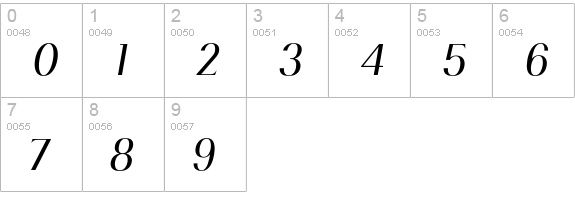
Vandermark-Oblique Font Details
Vandermark-Oblique is a distinctive, italic variant in the Vandermark typeface family \xE2\x80\x94 well suited to design and typography projects.
Vandermark-Oblique is a stunning and versatile font that effortlessly combines elegance and modernity. Its sleek and slanted design adds a touch of sophistication to any project, making it perfect for a wide range of applications. Whether you're designing a logo, creating a website, or crafting a stylish invitation, Vandermark-Oblique will captivate your audience with its unique and eye-catching appearance. This font features a harmonious balance between smooth curves and sharp angles, giving it a distinctive and contemporary feel. Its bold strokes and slanted characters create a sense of movement and energy, making Vandermark-Oblique an ideal choice for designs that require a dynamic and impactful touch. What sets Vandermark-Oblique apart is not only its exceptional aesthetics but also its availability. This font is free to download at FontsMarket.com, ensuring that you can access its beauty and versatility without any cost. Whether you're a professional designer or an aspiring creative, Vandermark-Oblique empowers you to bring your vision to life without any limitations. With its extensive character set and support for multiple languages, Vandermark-Oblique allows you to communicate your message effectively and seamlessly across various platforms. Its legibility remains uncompromised, even at smaller sizes, making it suitable for both print and digital designs. Vandermark-Oblique speaks volumes with its bold and distinctive presence. Its versatility and accessibility make it an invaluable addition to any designer's toolkit. So why wait? Download Vandermark-Oblique for free at FontsMarket.com and unlock a world of creative possibilities. Let your imagination soar and make a lasting impact with this captivating font.